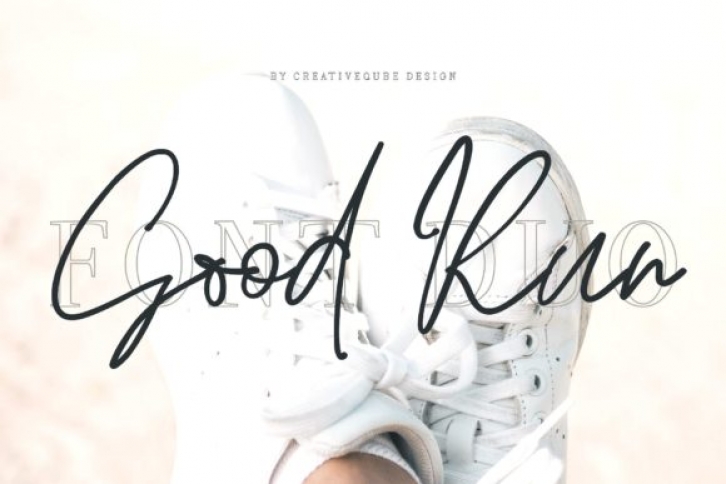
The Good Run is a fun easy hand written script, paired with an outline serif.
It’s perfect for quotes, invites, weddings, posters, signs, branding, logos, planner stickers, and much more!